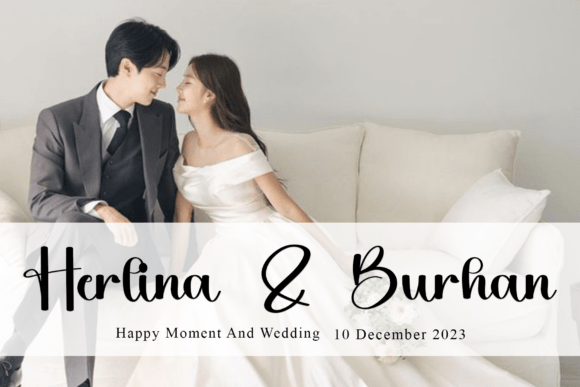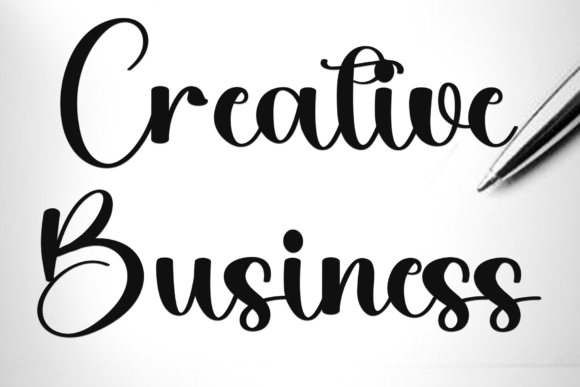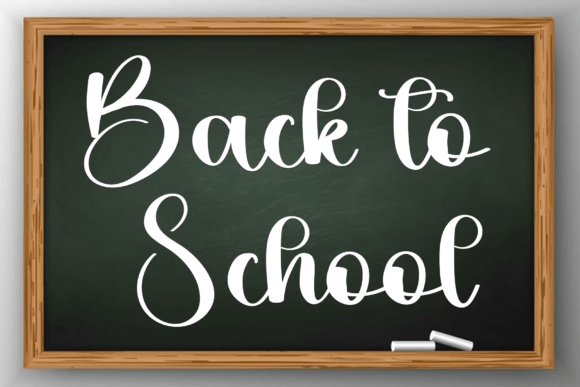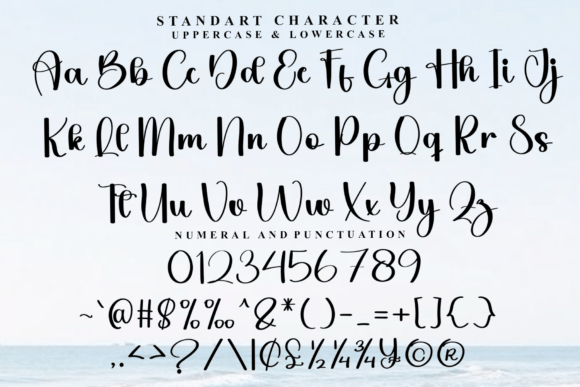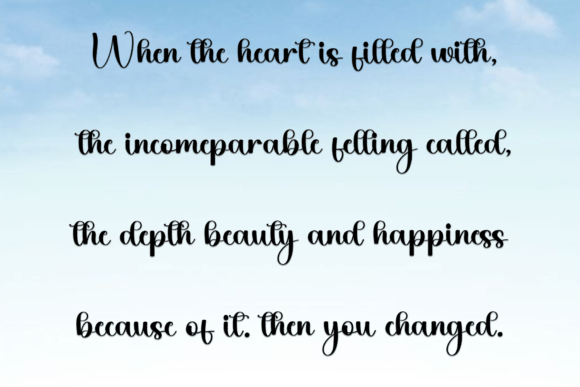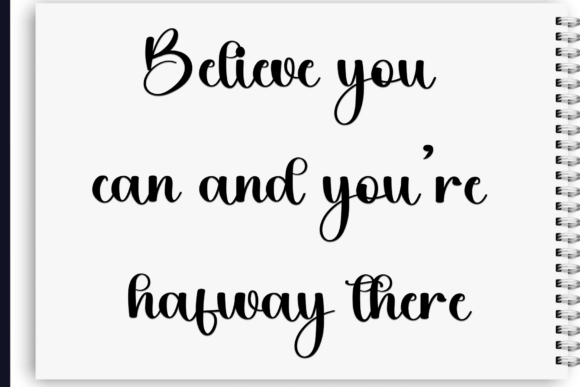
The Quest for the Perfect Font: Discovering Amellia
I still remember the time I was working on a wedding invitation project, and my client asked for a font that exuded elegance and romance. I scoured the internet, tried out countless fonts, but nothing seemed quite right. That was until I stumbled upon Amellia, a beautiful modern script font that stole my heart. In this article, I’ll share my experience with Amellia, its features, and how to make the most of it in your designs.
Amellia Font: A Personal Review
What I Love About Amellia ✨
- 💕 Smooth flowing lines and charming loops that give it a romantic feel
- 🎨 Versatile and works well for various design projects, from wedding invitations to social media posts
- 👍 Easy to pair with other fonts, thanks to its classic and elegant style
- ⚠️ Limited character set, which might not be suitable for projects requiring a wide range of special characters
- 🤔 May not be the best choice for body text, as it’s a script font and can be tiring to read in large blocks
The Story Behind Amellia
Amellia was designed by a team of typographers who wanted to create a font that captured the essence of romance and elegance. Inspired by classic calligraphy and modern digital design, Amellia was crafted to be both beautiful and functional. Whether it’s for a wedding invitation or a social media post, Amellia aims to bring a touch of sophistication and charm to your designs.
Q: What type of projects is Amellia best suited for?
A: Amellia is ideal for projects that require a romantic, elegant feel, such as wedding invitations, branding, and social media posts.
Q: Is Amellia a difficult font to read?
A: Amellia is designed to be highly legible, even at smaller font sizes, making it suitable for a wide range of design projects.
Q: Can I use Amellia with other fonts?
A: Yes, Amellia pairs well with many other fonts, thanks to its classic and elegant style. Experiment with different combinations to find the perfect match for your design.